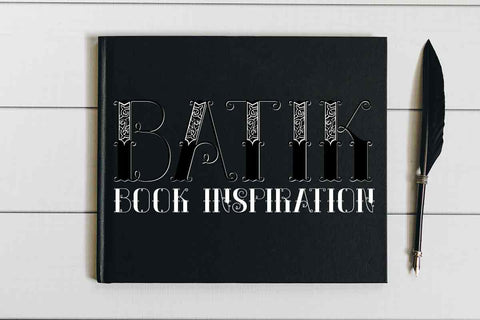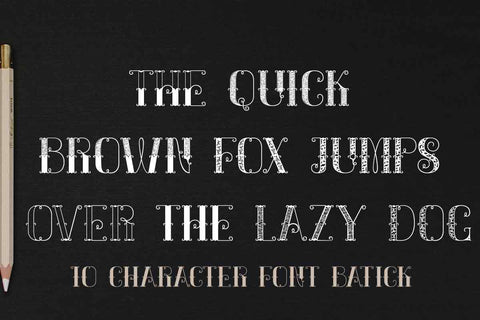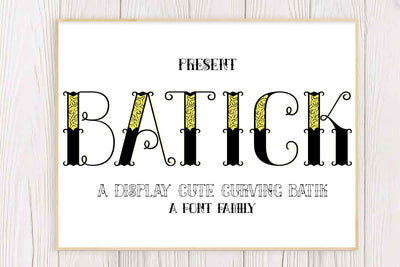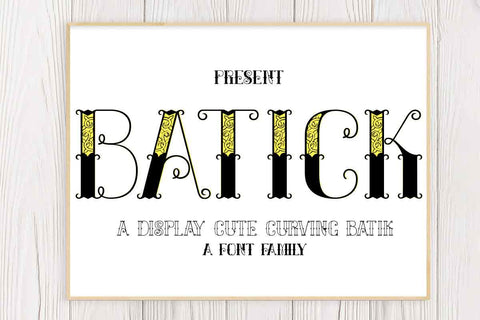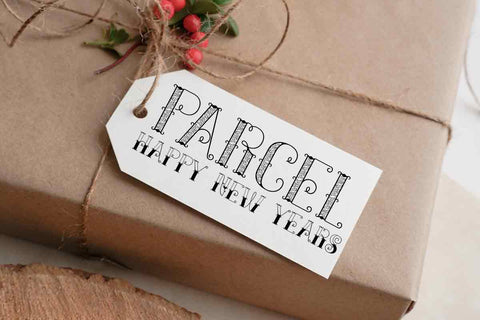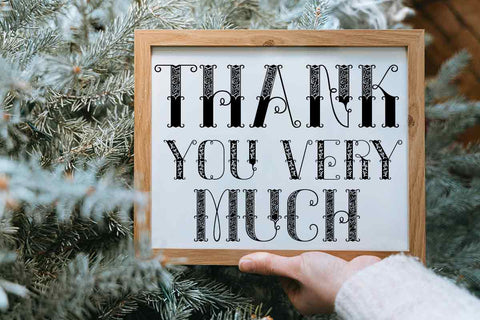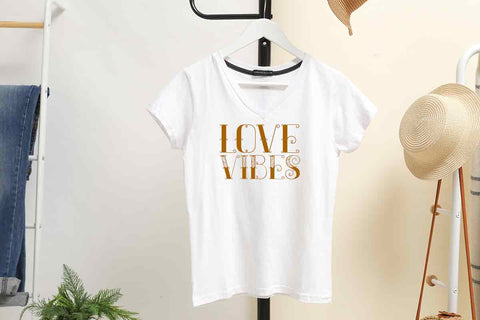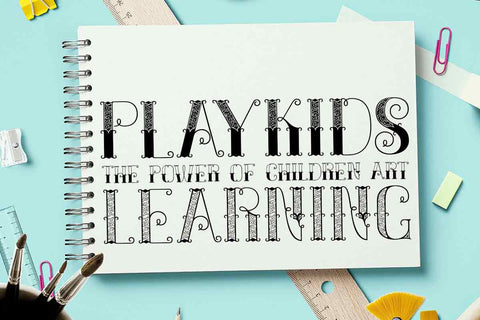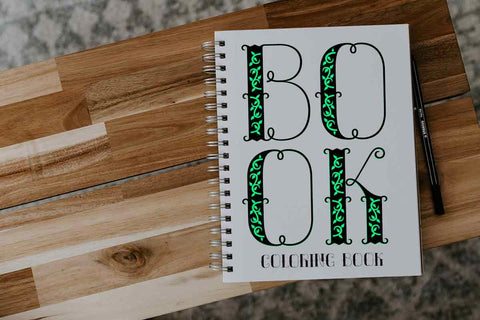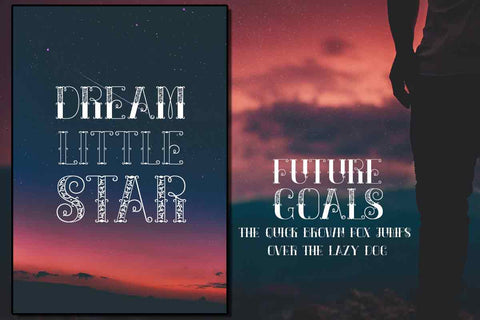
Batick font
Batick font is a cute and funny display font, there are some carvings in a very beautiful, and beautiful font, for you to make your project choices, this font is perfect for you to make choices, your designs, print media or coloring books, there are several characters you can use,